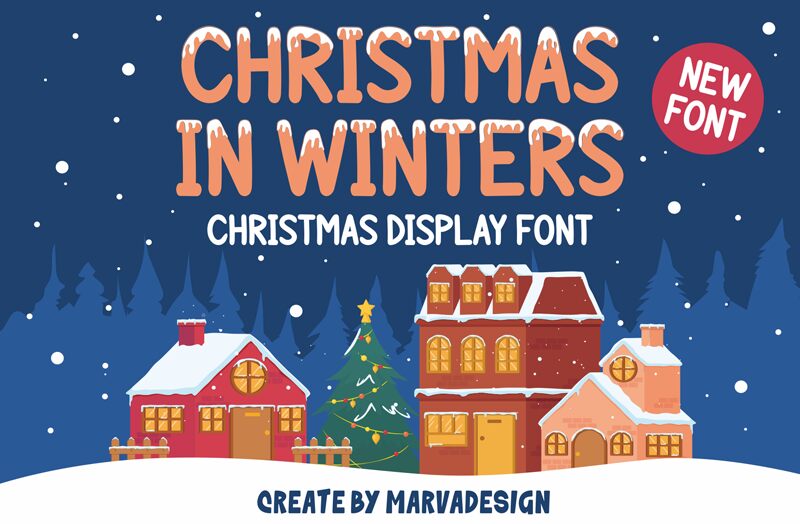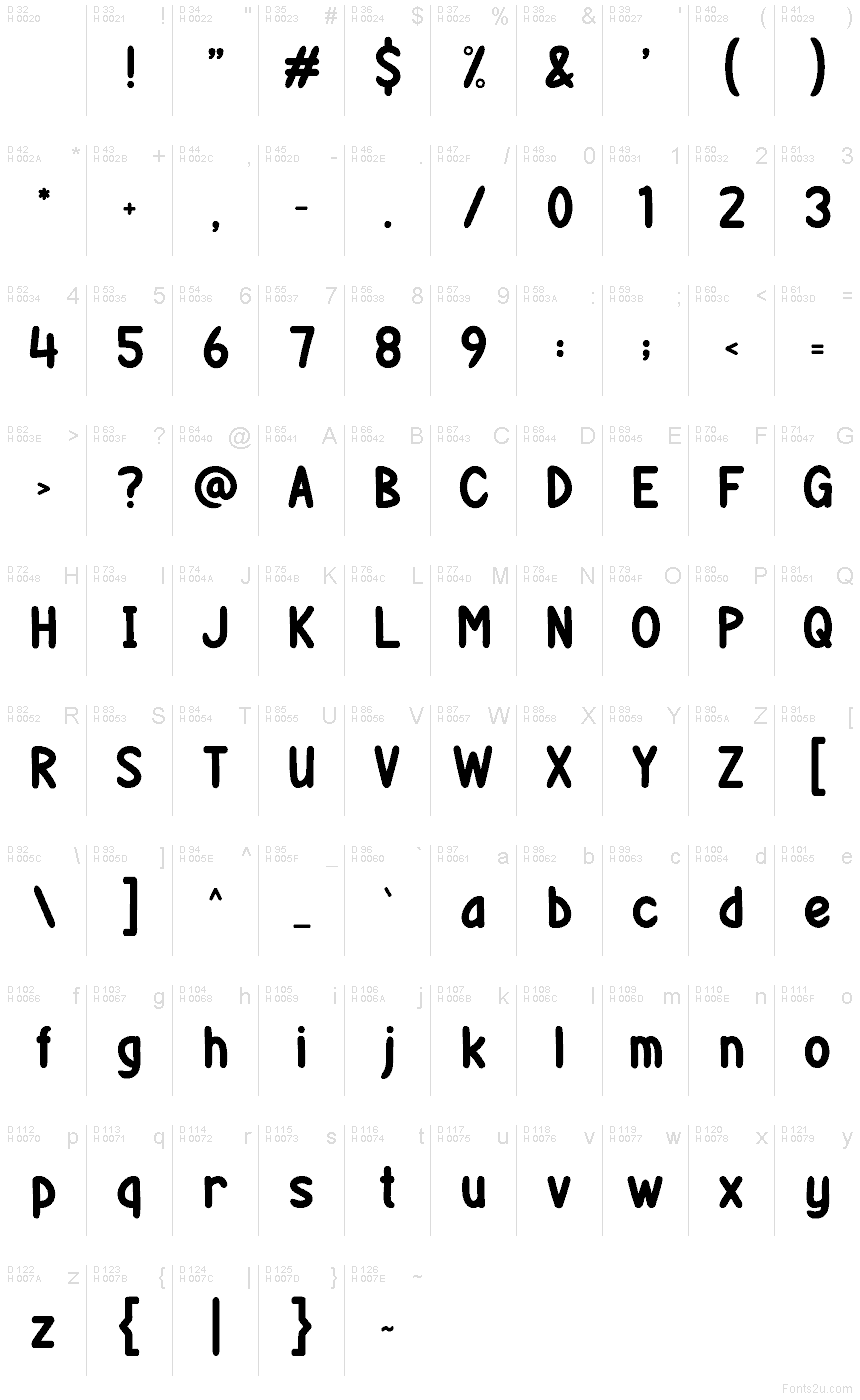
CHRISTMAS IN WINTERS
Christmas in Winters font by Marvadesign is a free Christmas decorative font that bottles up the cozy chaos of the holidays. Chunky, rounded letters feel like they’ve been hand-drawn with a thick marker, with a soft wobble that adds warmth instead of precision. The bold strokes and tight rhythm make it easy to read at a glance, even when layered over busy photos, glitter textures, or patterned backgrounds.
Using Christmas in Winters, you can knock out cheerful greeting cards, party invitations, classroom crafts, gift tags, store signage, and playful social media graphics in minutes. This free font shines when set large and bold, then paired with a clean sans-serif for smaller details to keep things readable while the headline brings the festive charm.